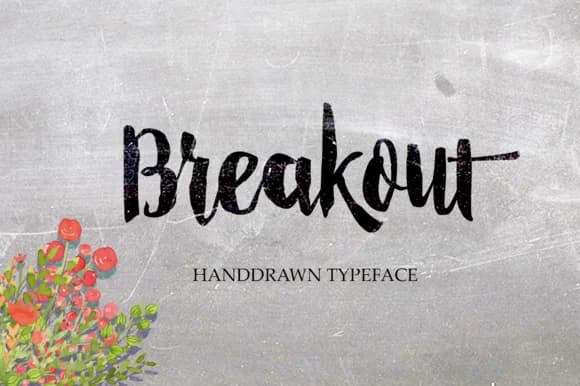
About Breakout Font
Breakout Font by Alqawoms is a handwritten script typeface that infuses creative projects with warmth and genuine personality. The flowing letterforms and dynamic strokes authentically capture the quality of hand-drawn letterwork, while maintaining surprising legibility, striking an effective balance between artistic expression and functional typography that readers can genuinely follow. This versatile script adapts well to numerous applications, including personalized thank-you card suites, artisan product branding, hand-lettered event stationery, and DIY craft signage. Whether designing custom packaging for a small business, creating standout social media graphics, or crafting branded promotional materials, Breakout delivers sophistication without veering into overly formal territory. The expressive character set gives each project a personal dimension that appeals to audiences who value authenticity and distinctive visual voice over mass-market design aesthetics. The font integrates seamlessly with industry-standard design platforms including Adobe Illustrator, Photoshop, and Canva, making it accessible to both seasoned designers and typography newcomers alike. It also cuts cleanly with popular crafting equipment, expanding possibilities for makers working on vinyl projects, custom signage, fabric applications, and countless other hands-on creative pursuits. Bring authentic handwritten charm to your next creative endeavor with Breakout Font on Creative Fabrica.
- Elegant, Flowing, Breakout
Breakout Font is a script font that shines as a display or heading face. Pair it with a clean sans-serif or serif font for body text β the contrast creates a clear hierarchy while the two styles stay balanced and easy to read.
Breakout Font
by Alqawoms